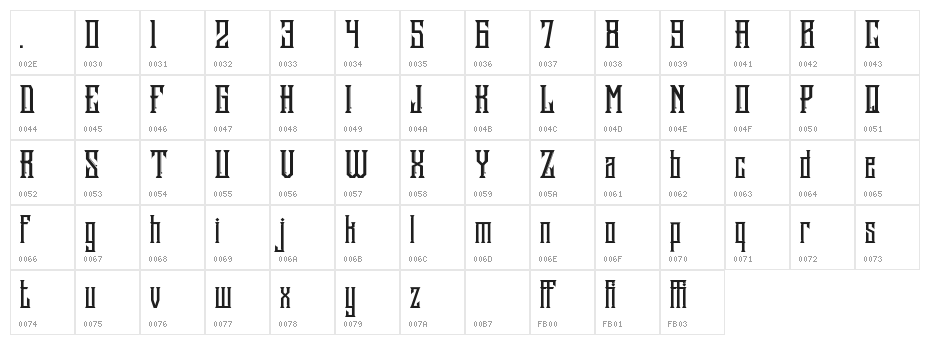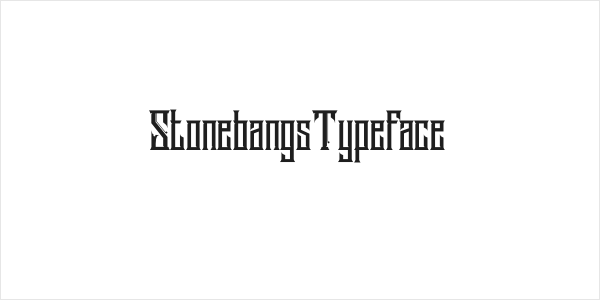
StonebangsTypeface Font
StonebangsTypeface Description
This typeface features a bold and striking design with sharp, angular edges and a gothic-inspired aesthetic. The uppercase letters are tall and imposing, while the lowercase letters maintain a consistent style, offering a cohesive look. The numerals are equally bold, ensuring they stand out in any design. The special characters are designed to match the overall style, making them suitable for a variety of creative projects. The font's unique appearance makes it ideal for creating eye-catching headlines, posters, and branding materials.
| Overall Style | Gothic, Decorative |
| Use Case | Headlines, Posters, Branding |
| Proposed Projects | Ideal for posters, branding, album covers, and any project requiring a bold, eye-catching typeface. |